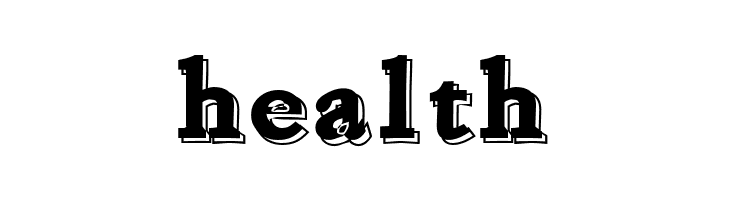
8Pin Matrix Font
Font by www.matchfonts.com - Michel Bujardet
A dot matrix style font with a retro digital display aesthetic.
Bagad Bold Tryout Font
A bold serif font with strong strokes and classic elegance.
Normographe Tryout Font
A clean, modern sans-serif font with geometric shapes and uniform line thickness.
Cursive Handwriting Tryout Font
A flowing cursive font with elegant, connected characters.
CristoLikid Tryout Font
A modern, geometric font with a futuristic, tech-inspired design.
Baby Face Font
Font by www.matchfonts.com - Michel Bujardet
A bold, geometric font with a modern and playful style.
Skryptaag Tryout Font
An elegant, flowing script font with smooth, continuous strokes and delicate curves.
Aguizard Tryout Font
A clean, modern sans-serif font with balanced proportions and excellent readability.
Bordini [Unregistered] Font
Font by www.matchfonts.com - Michel Bujardet
An elegant and sophisticated font with graceful curves and tapered strokes.
Dactylographe Font
Font by www.fontmenu.com
A classic serif font with elegant strokes and a modern touch.
Mariette Tryout Font
A lively, cursive handwritten font with fluid, connected strokes.
Block Letters Tryout Font
A clean, elegant script font with a slight slant and consistent stroke widths.
JunienLight Tryout Font
A modern, clean sans-serif font with balanced spacing and consistent stroke width.
Normafixed Tryout Font
Font by www.fontmenu.com
A modern, clean sans-serif font with uniform strokes and geometric influences.
Chapou Relief Tryout Font
A bold serif font with a 3D relief effect, perfect for impactful designs.
Halotique Tryout Font
A modern, clean sans-serif font with uniform stroke width and excellent readability.
Bordofixed Tryout Font
A modern serif font with sharp serifs and clean lines.
Rodolphe Tryout Font
An artistic and elegant font with flowing, dramatic letterforms.
Oncial Font
A calligraphic font with sharp, angular strokes and medieval flair.
Candy Cane Match Font